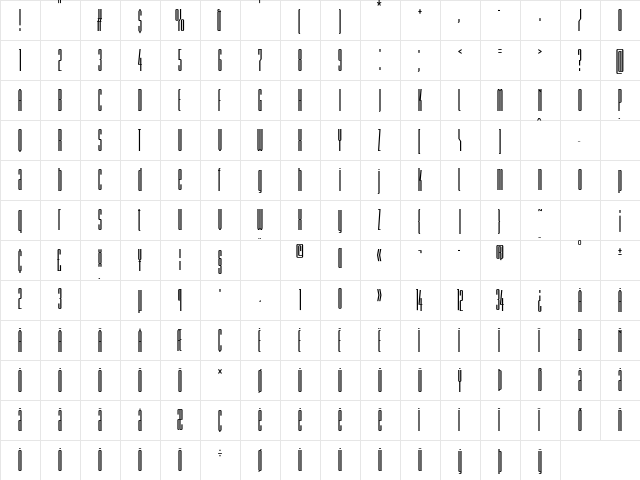
Briem Akademi Std Bold Compressed
| Designer | Gunnlaugur SE Briem |
Design Context for Briem Akademi Std Typeface
Briem Akademi Std takes a measured approach to typography — its balanced proportions and neutral character make it a reliable workhorse for both digital and print work. The heavy weight commands attention and anchors typographic hierarchies.